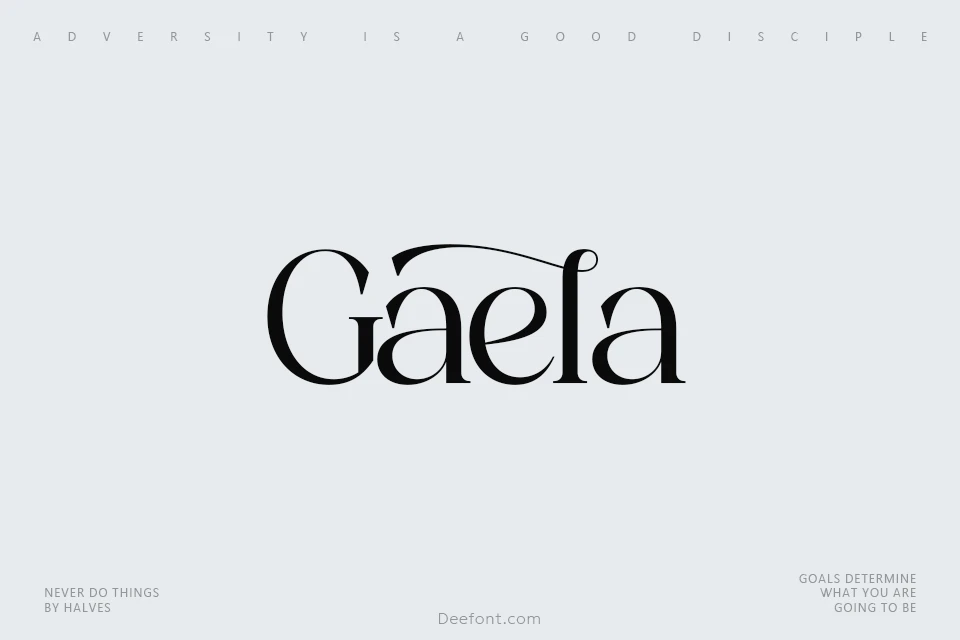
Gaela Font
Gaela Font is a sophisticated modern serif typeface that combines timeless elegance with contemporary flair. Featuring high-contrast strokes and stylish curves, Gaela is ideal for creating luxurious logos, book or movie titles, branding, and editorial designs. Its unique ligatures and alternate characters add a touch of refinement, making it perfect for projects that demand creativity and class. The font’s versatility allows it to shine in both minimalist and ornate layouts, offering designers the flexibility to craft stunning visual compositions. With its bold yet graceful appearance, Gaela Font elevates any design with a sense of elegance and professionalism.